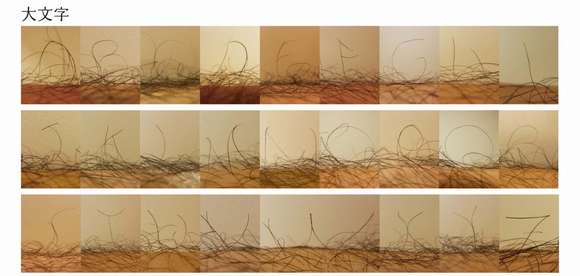
Sending your office e-mails in the classic Comic Sans may become a thing of the past quite soon, as long as aspiring artist Mayuko Kanazawa continues to create typeface like her Leg Hair Font.
As a Japanese Tama Art University student in the Department of Design, Kanazawa was assigned a project that asked her to create a type of font without relying on her computer. Creating lettering without the help of digital design seems like a tough task, but the 20 year old artist quickly came up with a hair-raising idea. After a friend complained of leg pain, Kanazawa looked at their tangled tresses and the concept was born to twist hair to look like upper and lower case letters.
Hold your razors writers, the Leg Hair Font may just be your new favorite stubbly substitute for Times New Roman.
Limb Tress Lettering
The Mayuko Kanazawa Leg Hair Font is Interestingly Unshaven Tangled Typeface